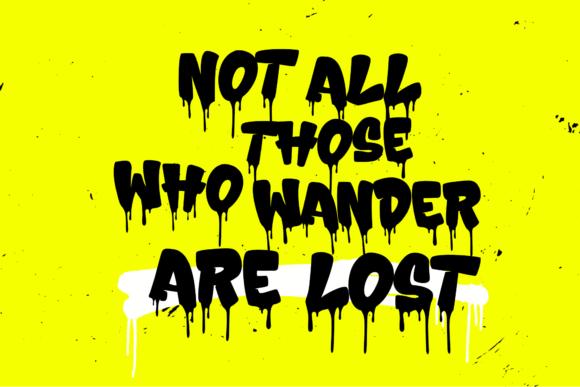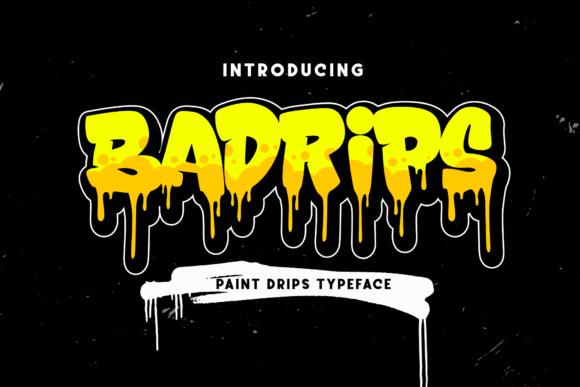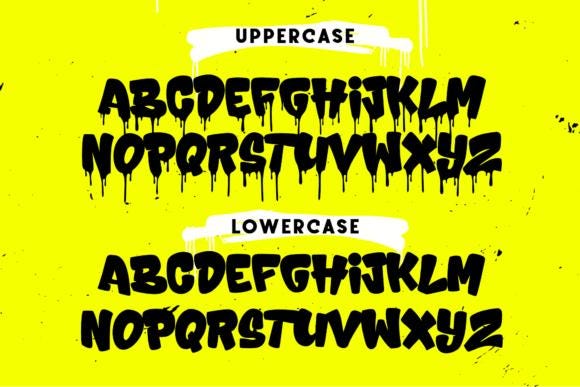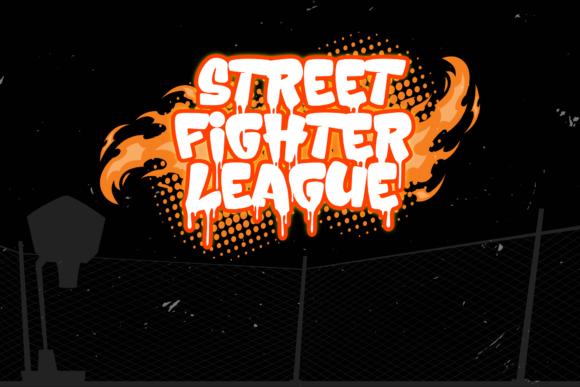
Badrips Font
Badrips is a cool street styled display font, inspired by the graffiti art. No matter the topic, this font will be an incredible asset to your fonts' library, as it has the potential to elevate any creation.